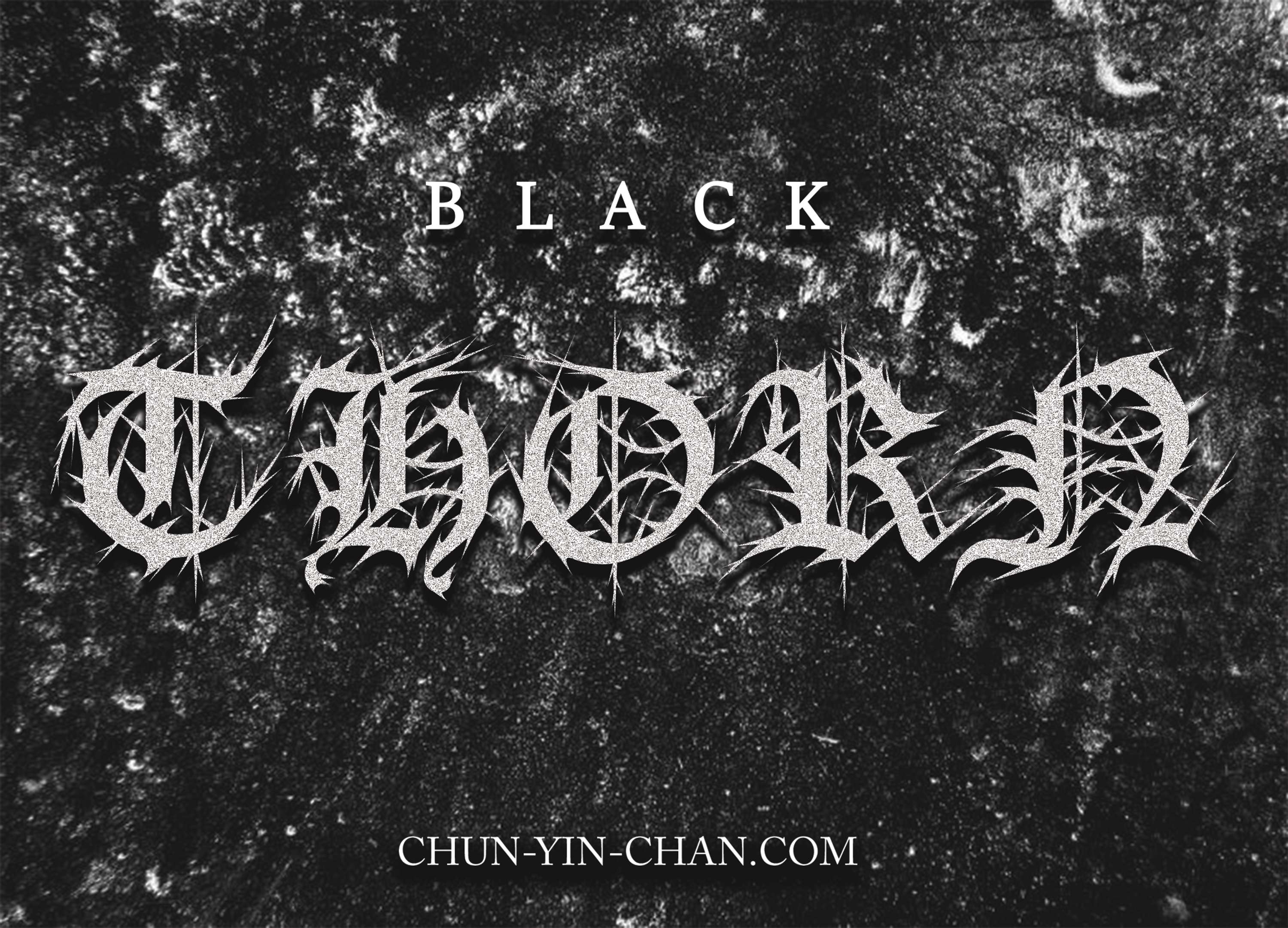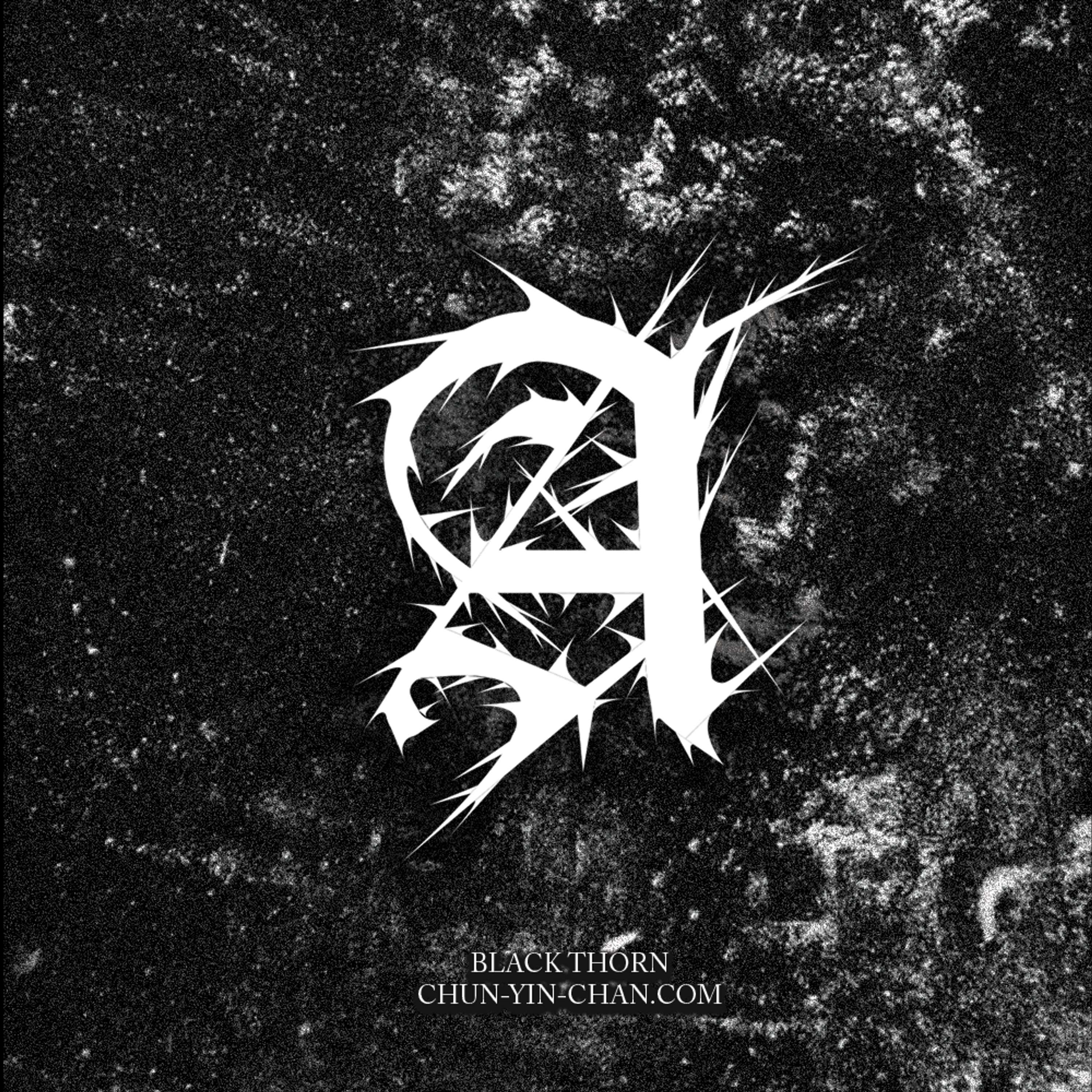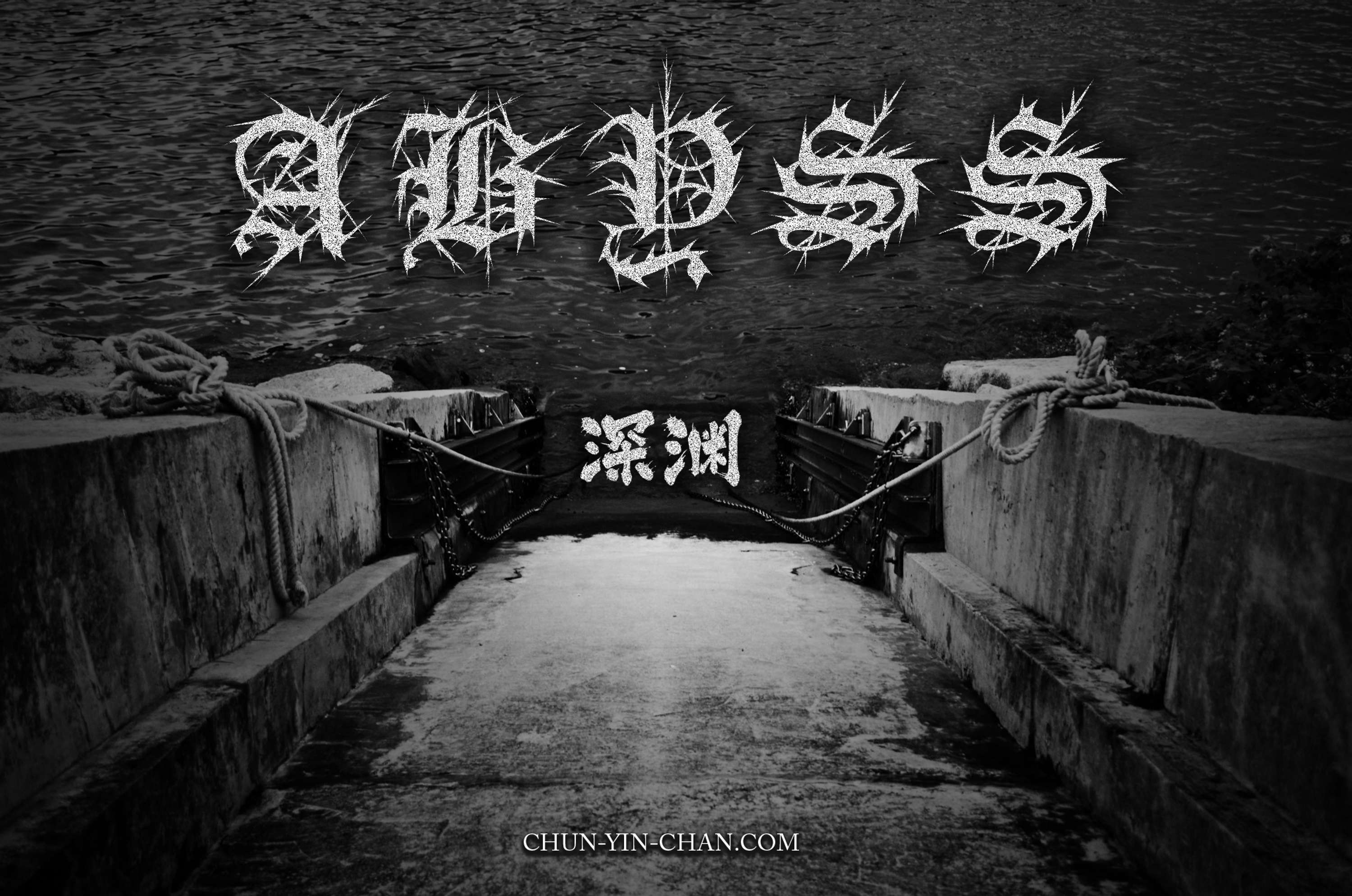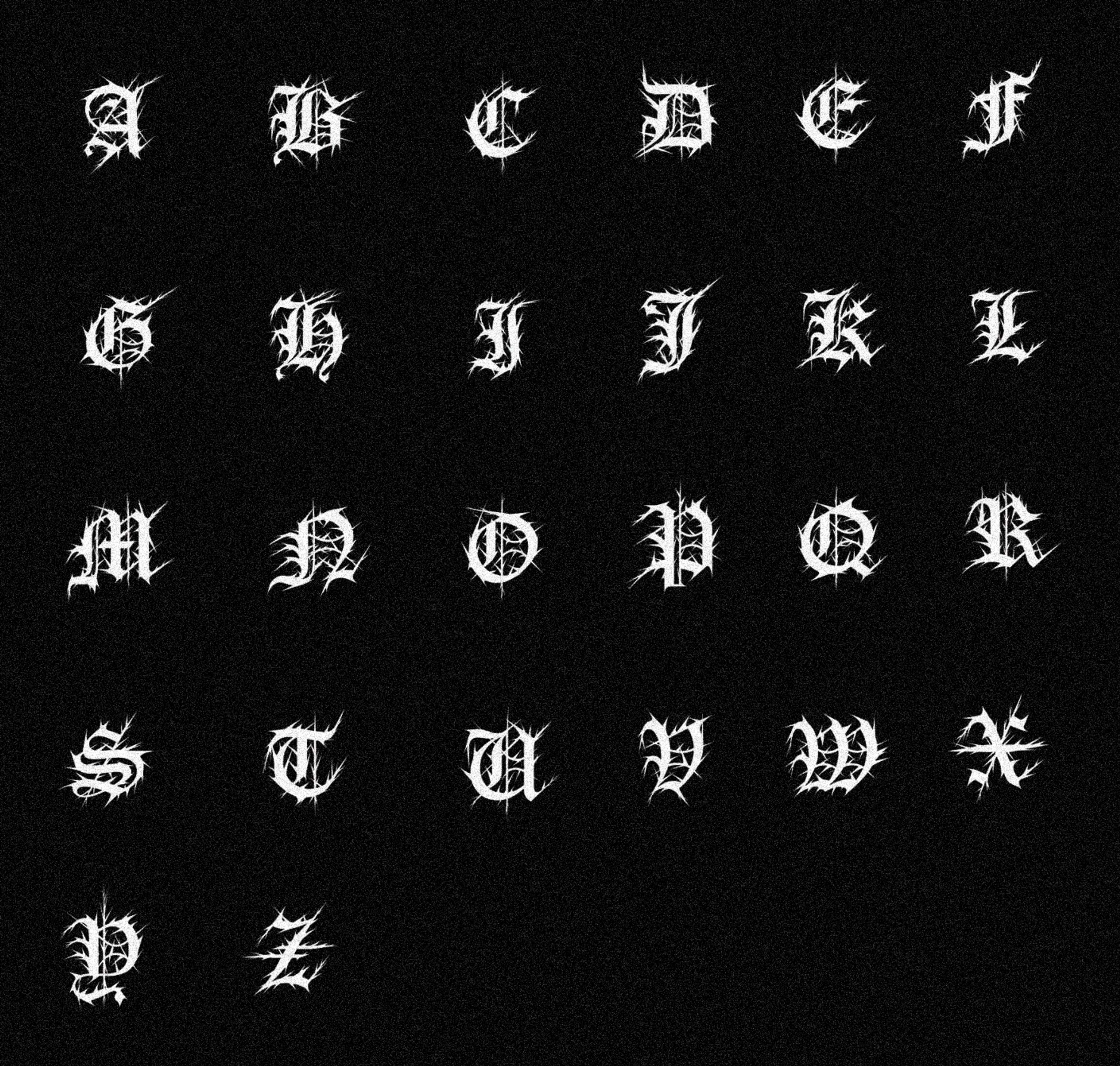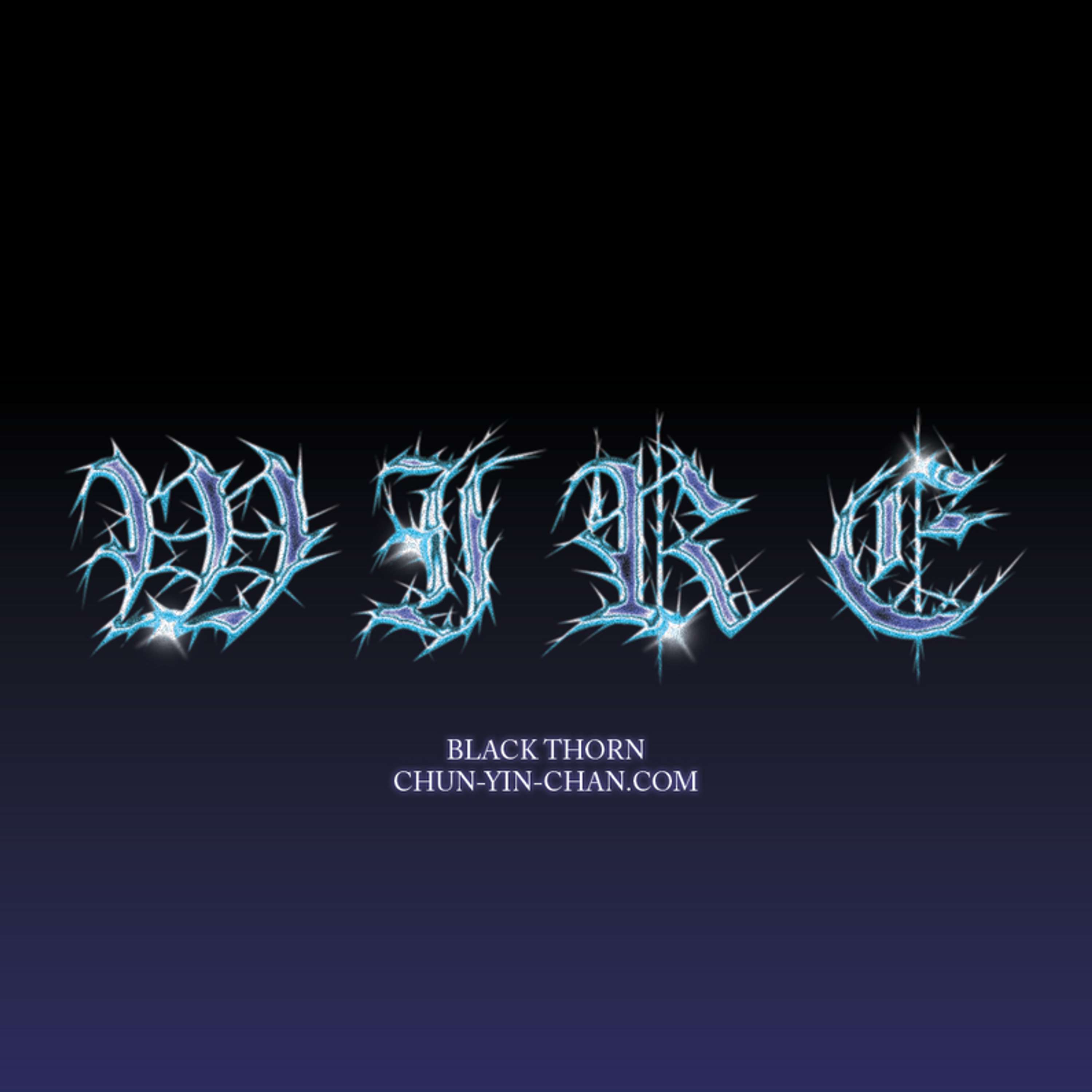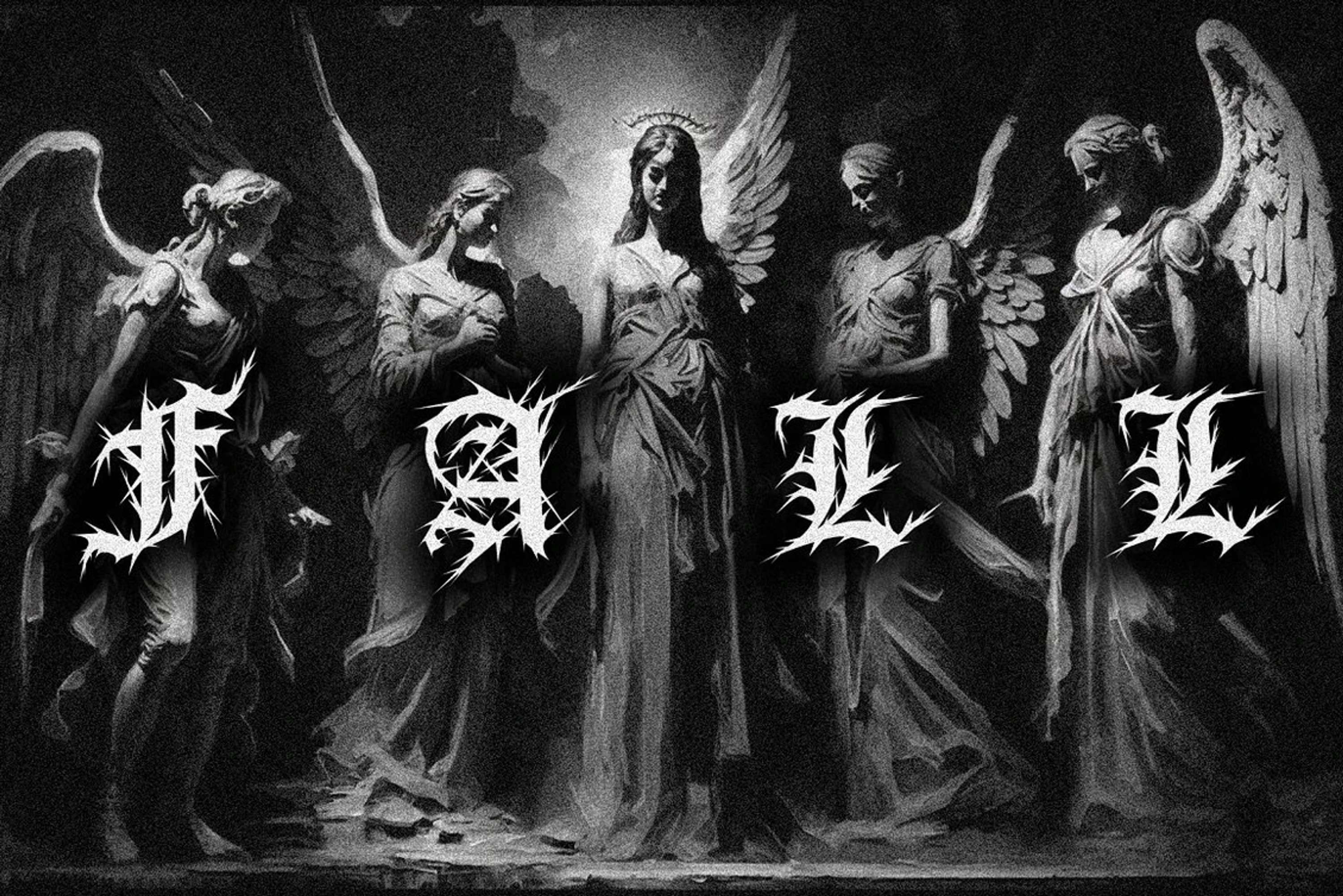
Black Thorn Fonts Design Project
Introducing "BlackThorn" - a powerful and striking font design that seamlessly blends Old English lettering with modern black metal spike design and gothic script. With its strong structure and thin, finely defined spiky outlines, this font is the perfect choice for designers who want to add a touch of edginess and sophistication to their designs. BlackThorn is available in OTF, TTF, and WOFF formats, making it easily accessible for designers of all levels. Whether you're creating product labels, tattoos, badges, logos, poster titles, or anything in between, this font is versatile enough to suit your needs. With its bold, commanding presence and intricate details, BlackThorn is sure to make a statement and grab the attention of anyone who sees it. Don't miss out on the opportunity to add this stunning font to your design arsenal and elevate your creations to the next level.
Black Thorn Fonts Design Project by Chun-Yin Chan